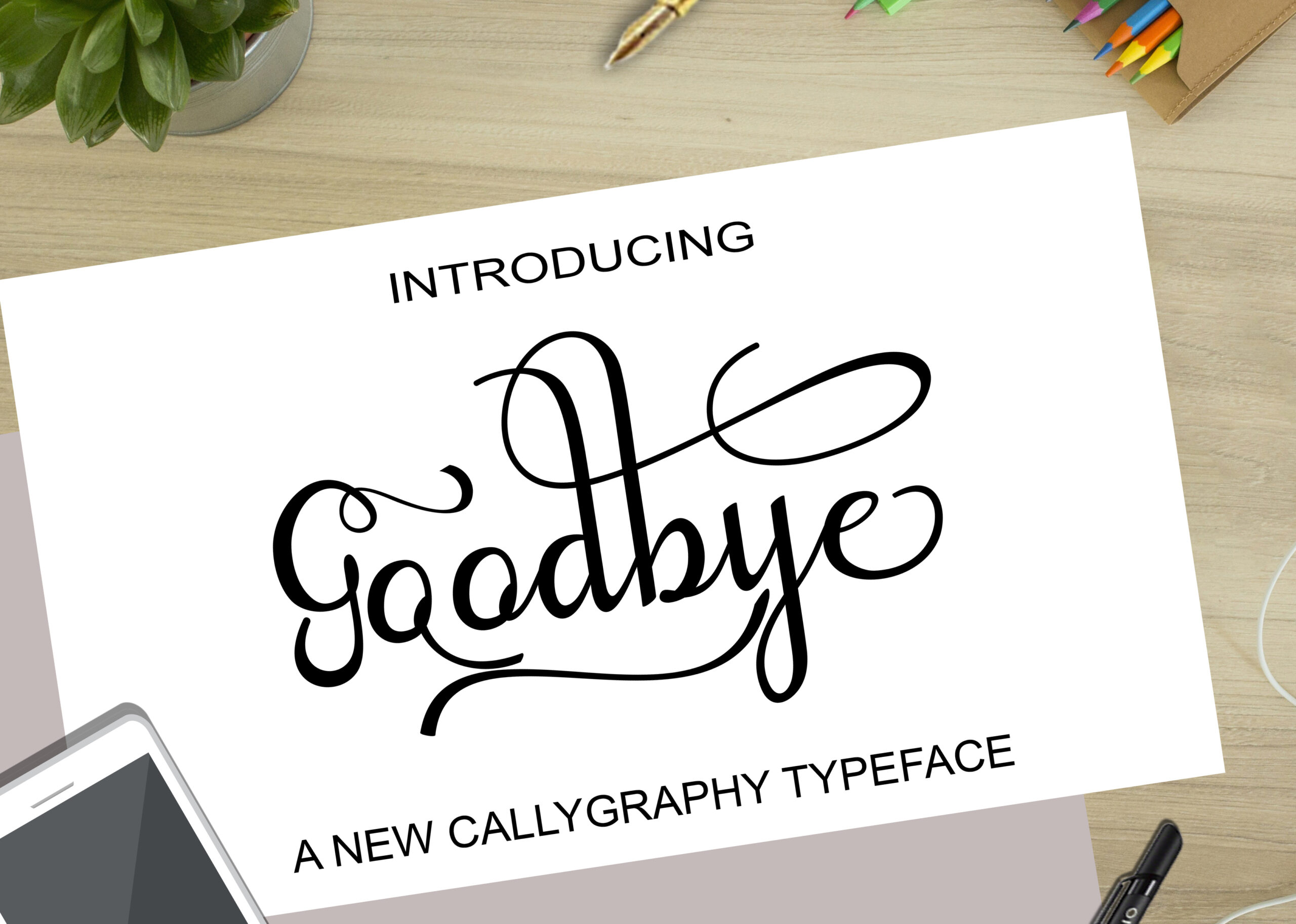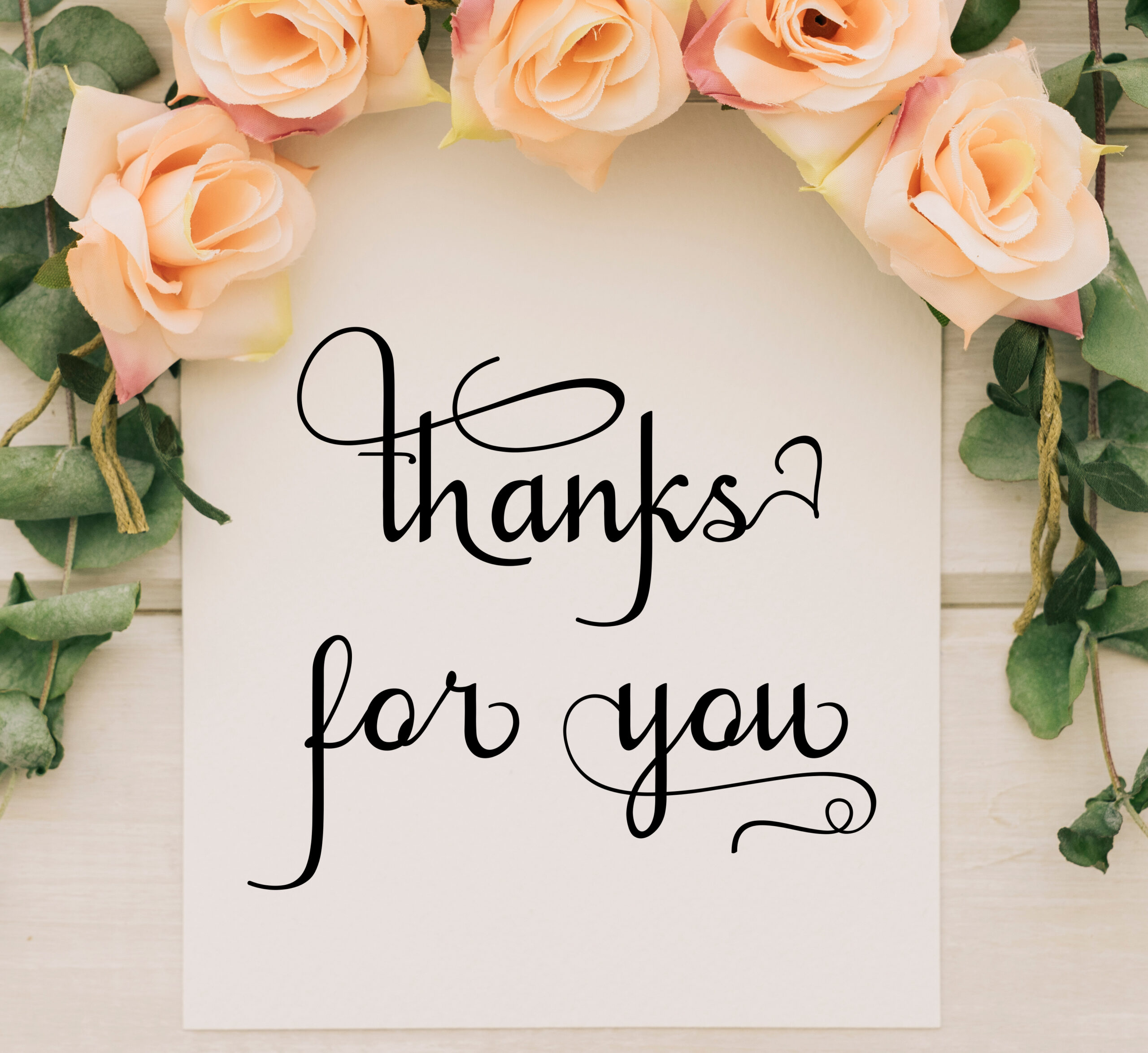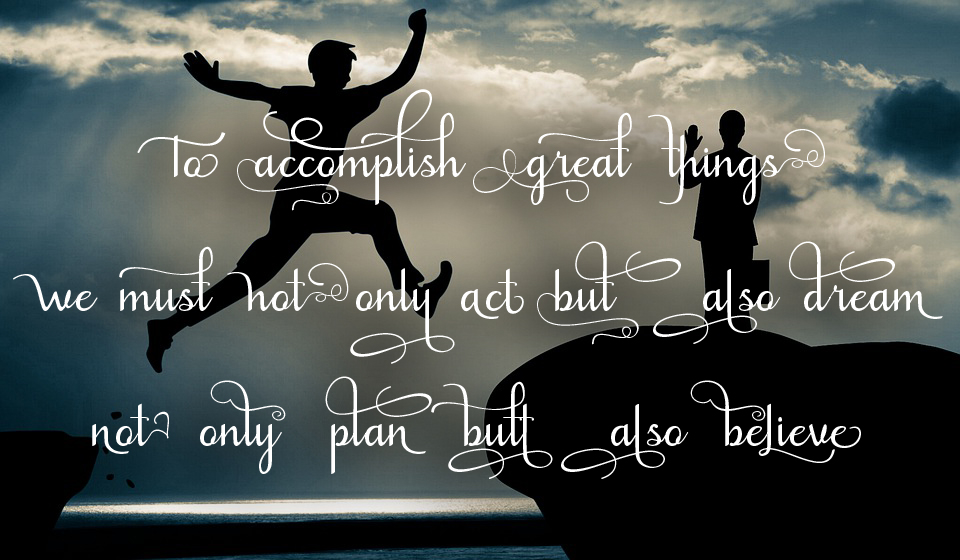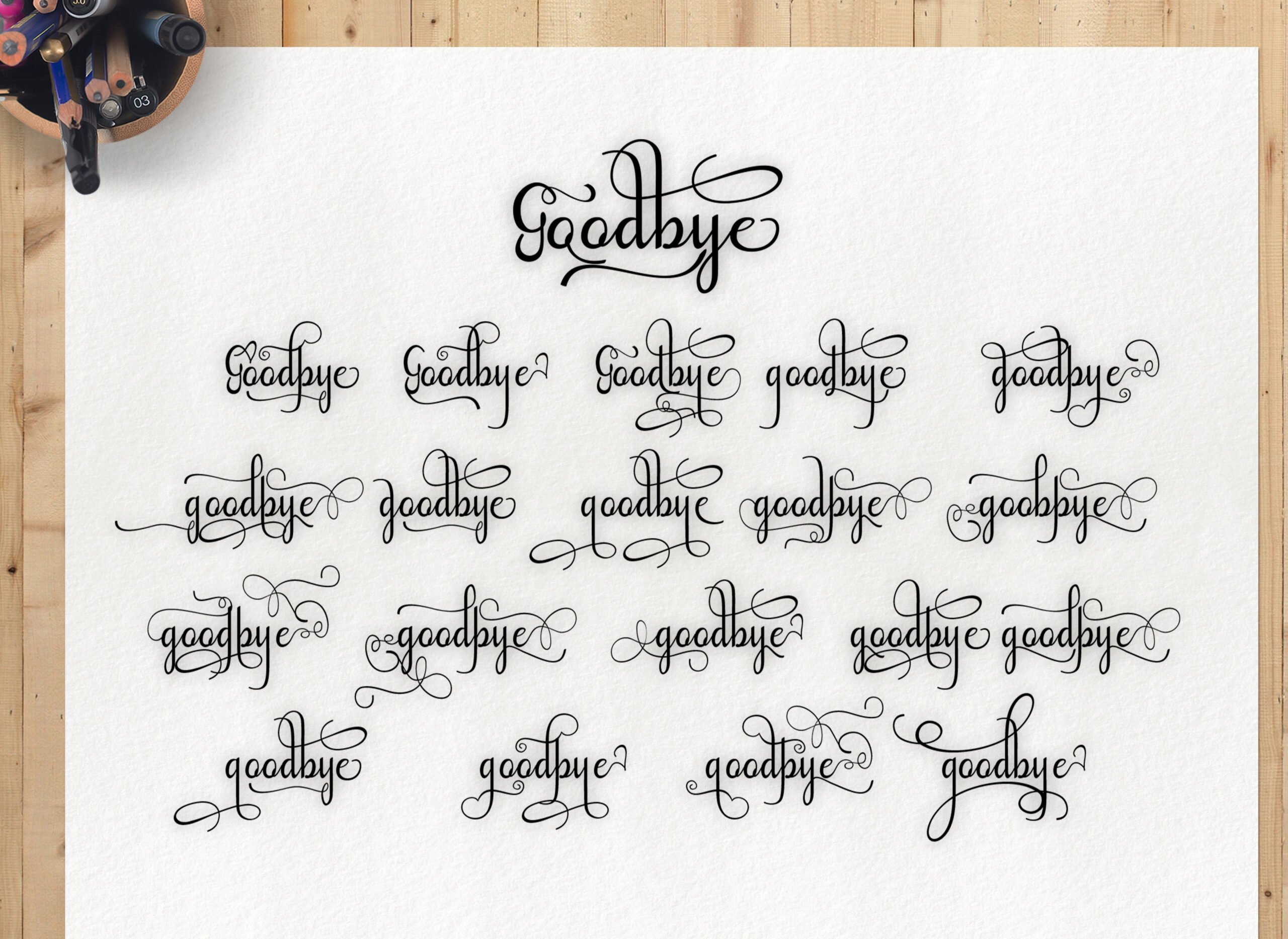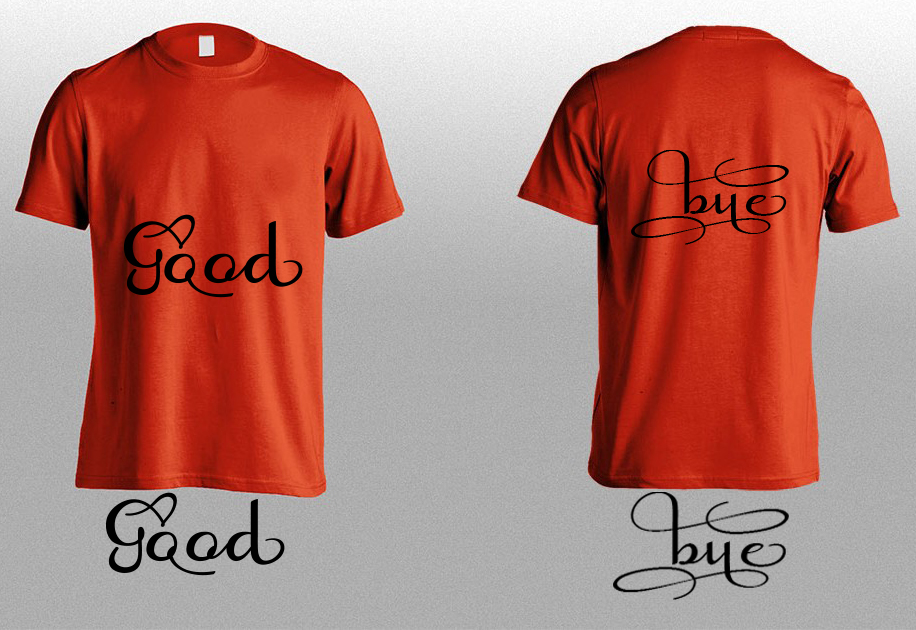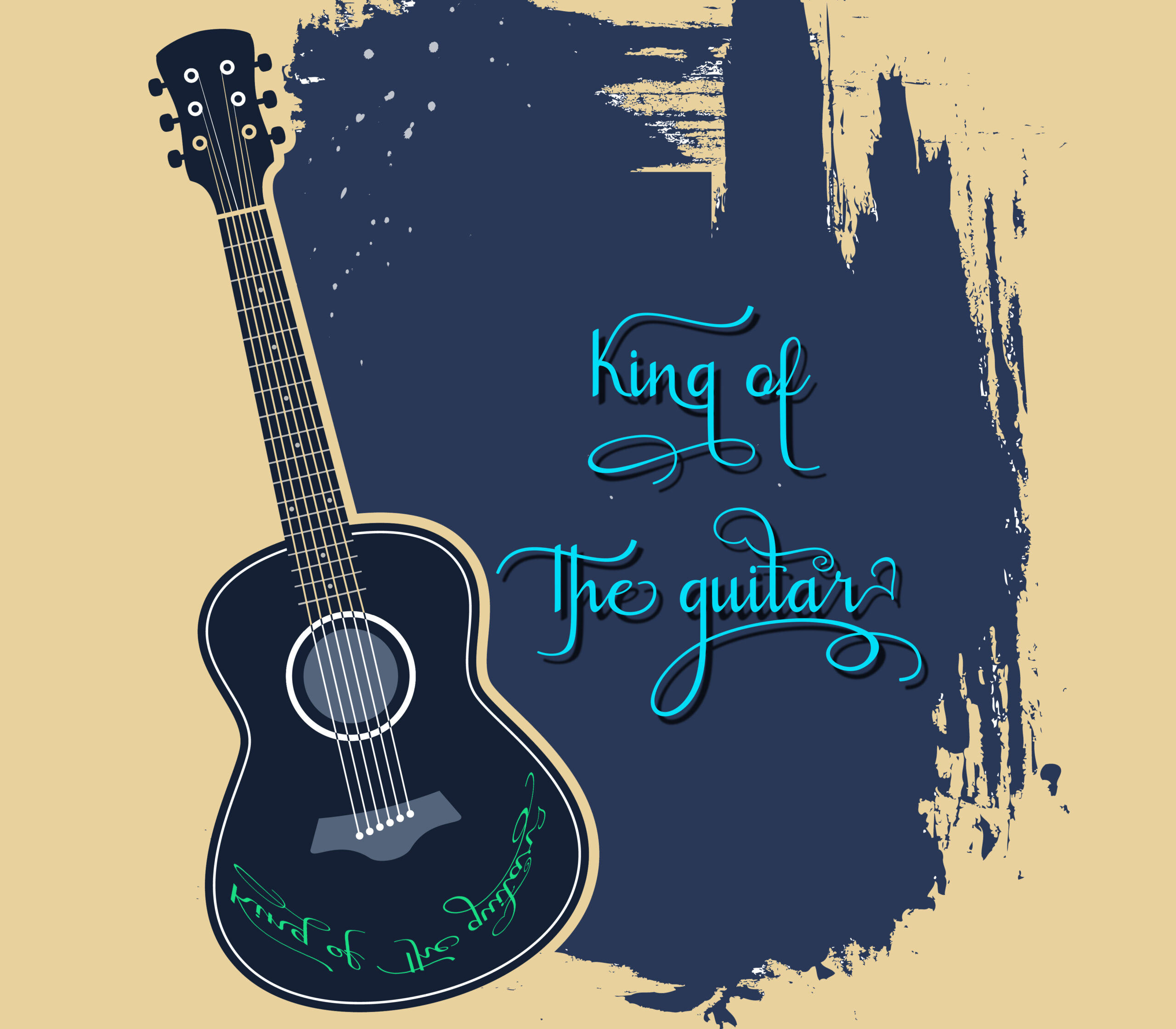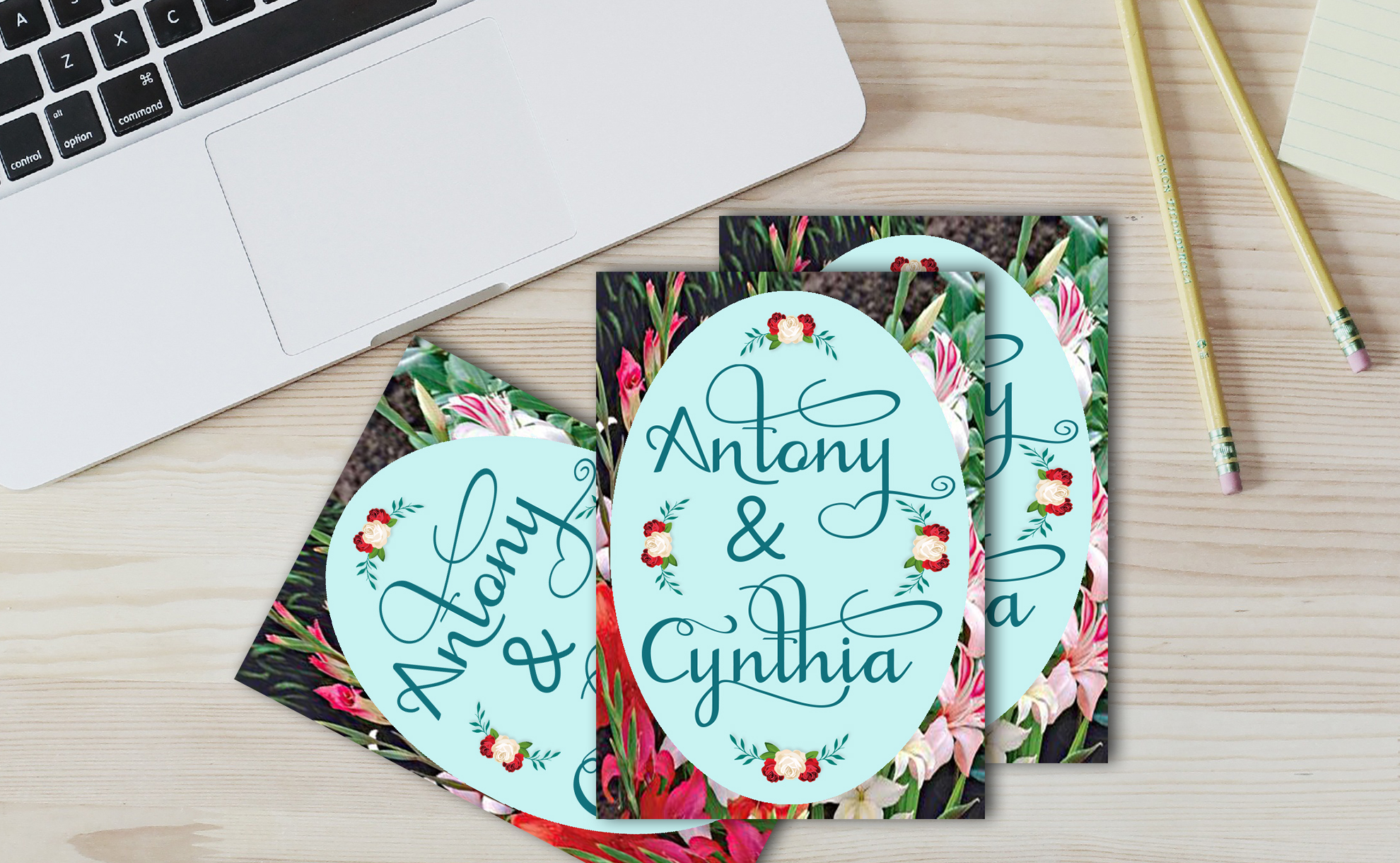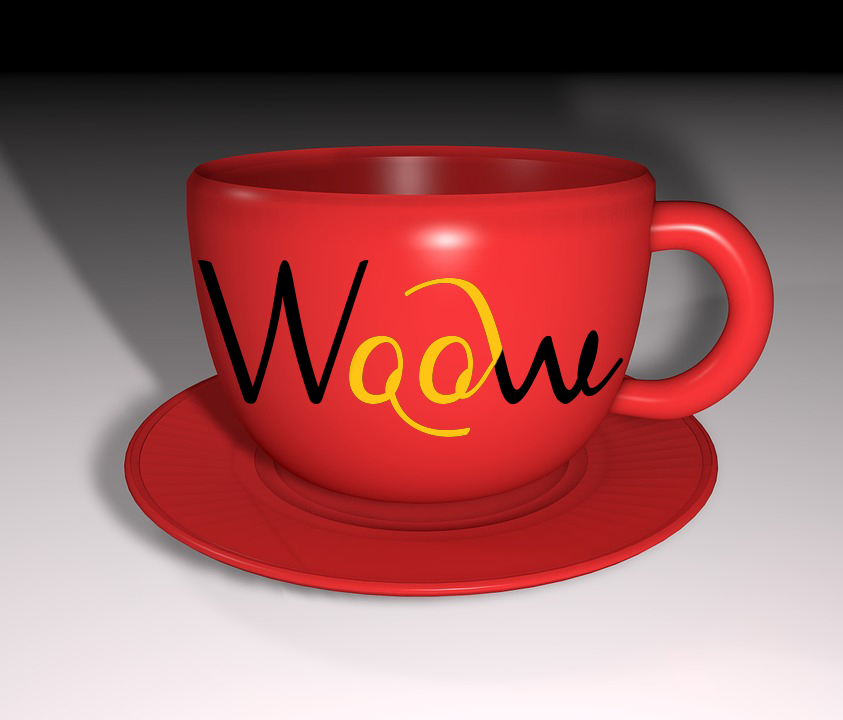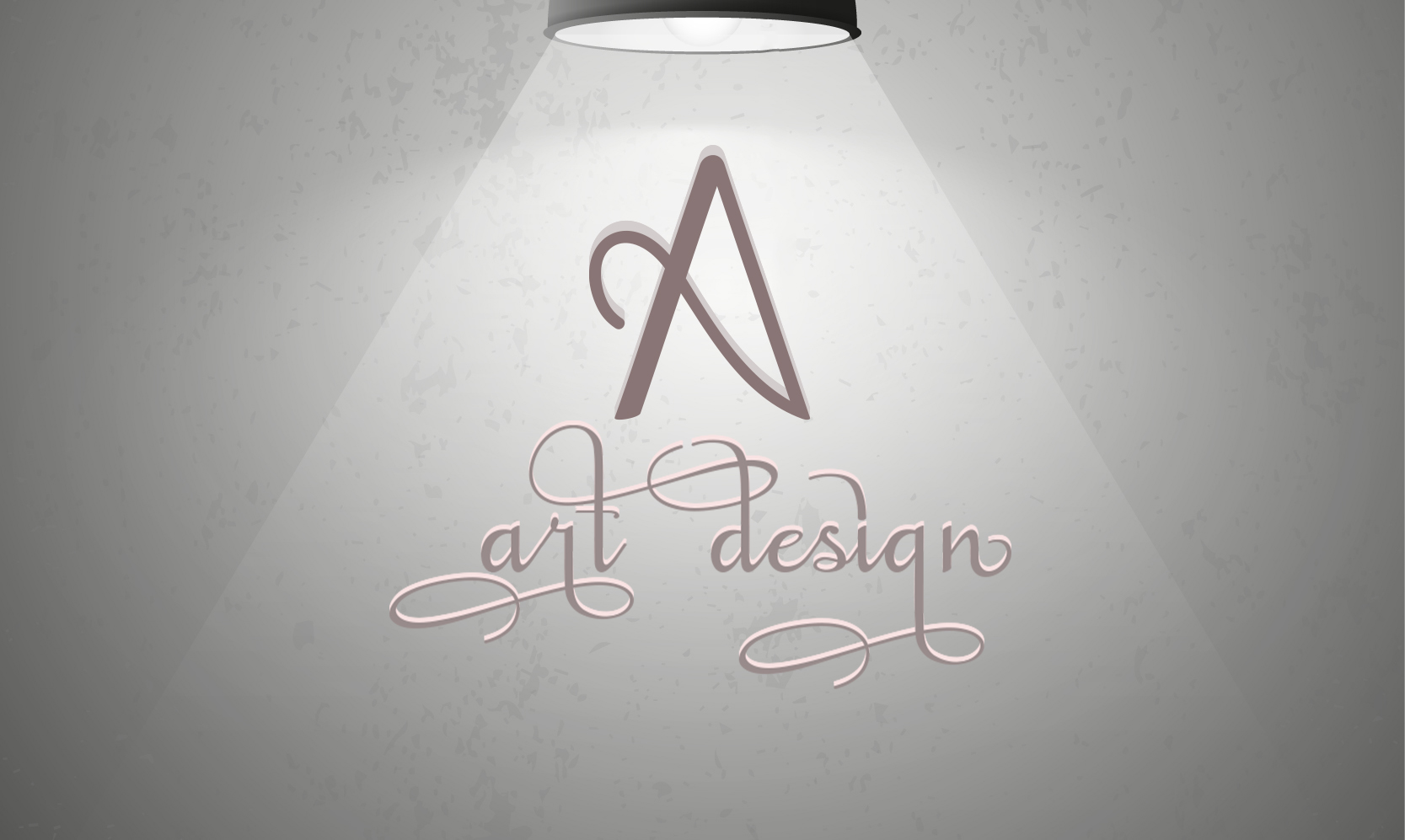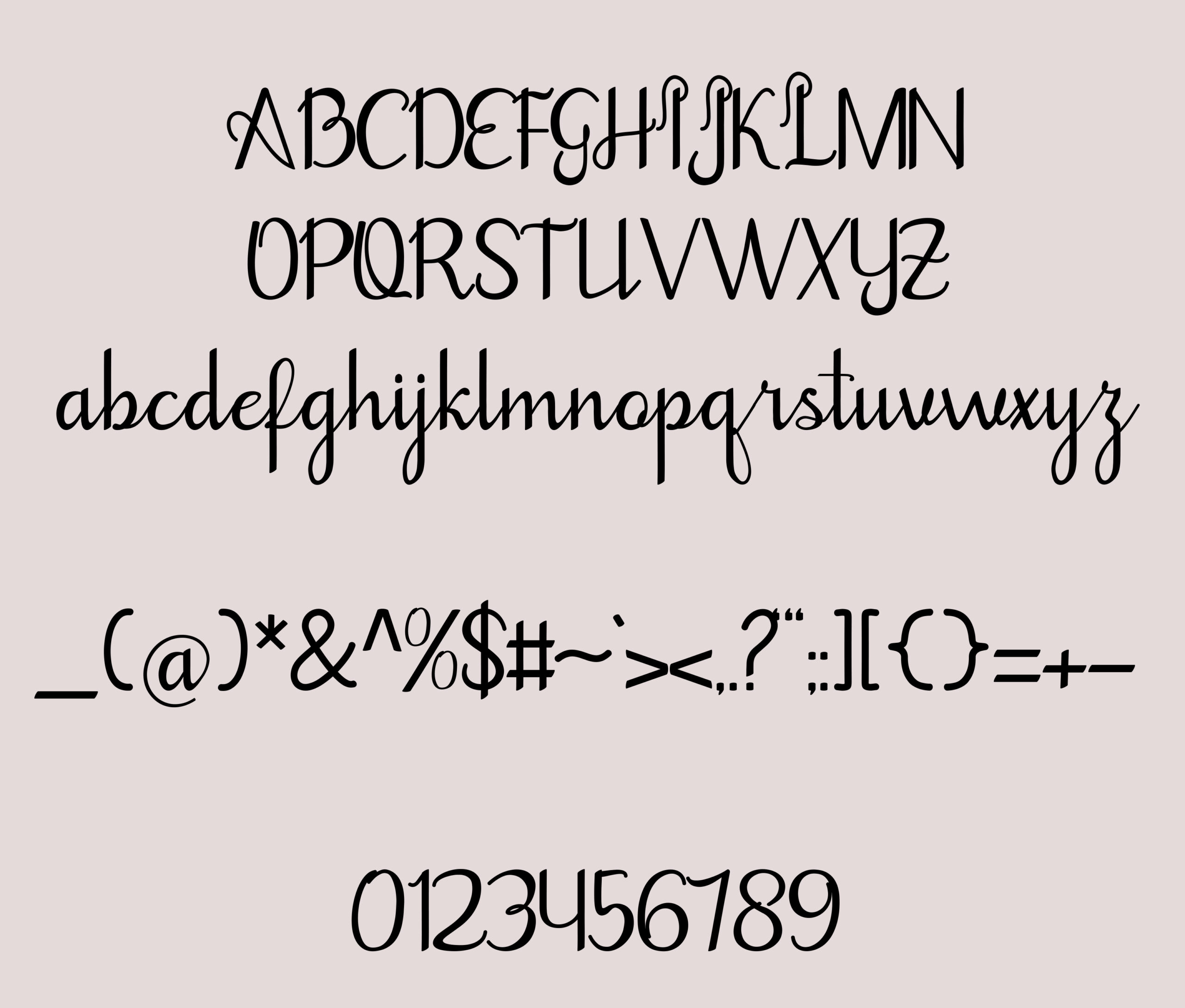
Goodbye Font
About Goodbye Font
Goodbye Script is packed with a staggering 915 glyphs, allowing you to create endless combinations.
The decorative characters dance on your screen.